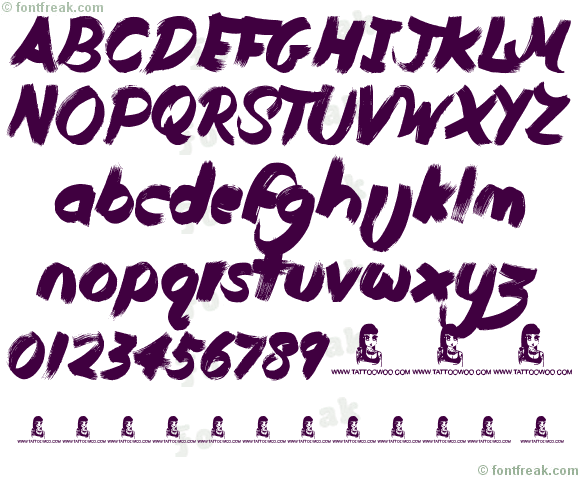
The Duty Cycle font, designed by Jonathan S. Harris in 2014, is a striking display typeface that falls into the decorative category. With its bold, brushstroke appearance, this font exudes a sense of energy and creativity that can instantly grab attention. The stroke weight varies, with thicker lines that create a dynamic contrast against the thinner strokes, resulting in a visually engaging texture. The spacing between characters is well-balanced, making it easy to read while still maintaining a lively aesthetic.
Duty Cycle is particularly well-suited for a variety of creative applications. It makes a fantastic choice for wedding invitations, where its artistic flair can enhance the overall design and add a personal touch. Additionally, it shines in movie posters, offering a contemporary vibe that can complement the theme of any film. Restaurant menus can also benefit from this font, lending a modern yet approachable feel that invites diners to explore the offerings. Other ideal uses include branding materials for creative businesses and social media graphics, where the font can help convey a bold identity.
What sets the Duty Cycle font apart is its ability to blend artistry with functionality. It captures attention while remaining versatile enough for various uses, making it an exceptional choice for anyone aiming to make a statement in their designs. For those interested, the Duty Cycle font free download is readily available, allowing users to unleash their creativity with this remarkable typeface.